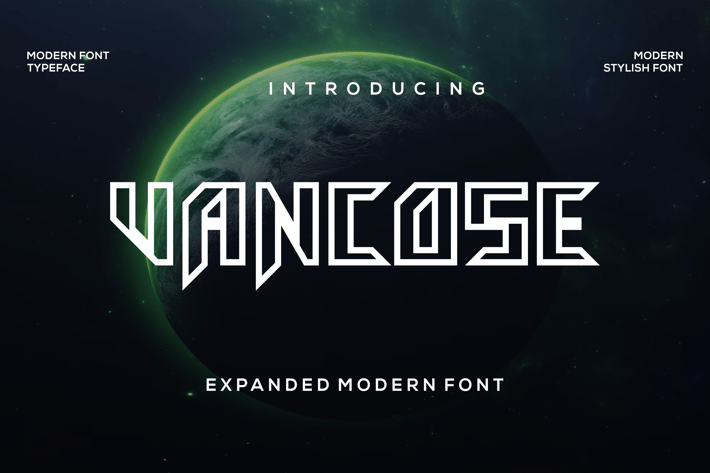
Vancose Font
Introducing our new product Vancose Font - Modern Fonts
Vancose Font - Modern Font is a bold and authentic display font. This font is suitable for any branding projects such as logos, esport and more. extraordinary in many contexts.